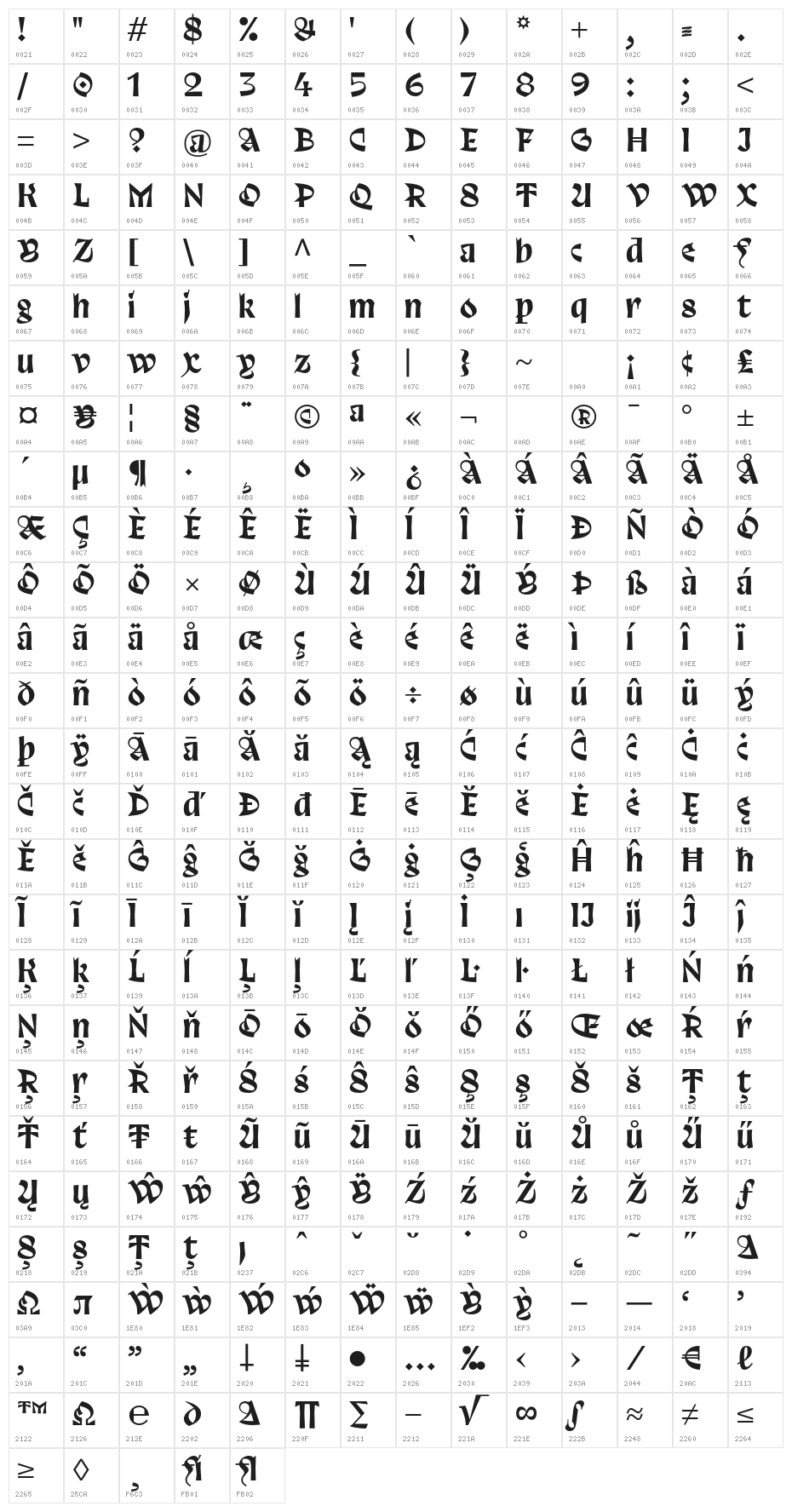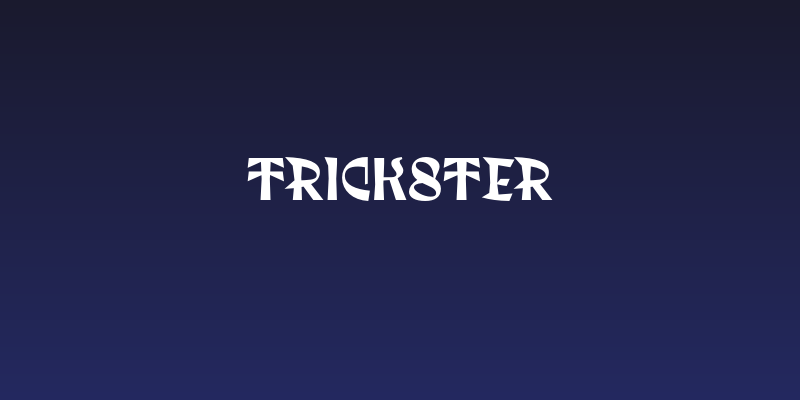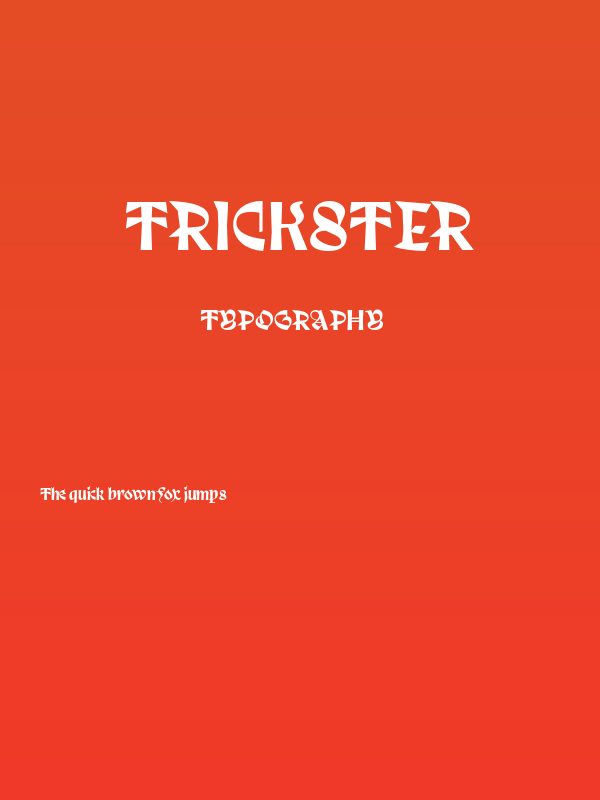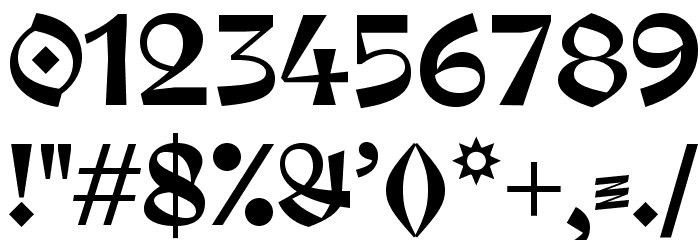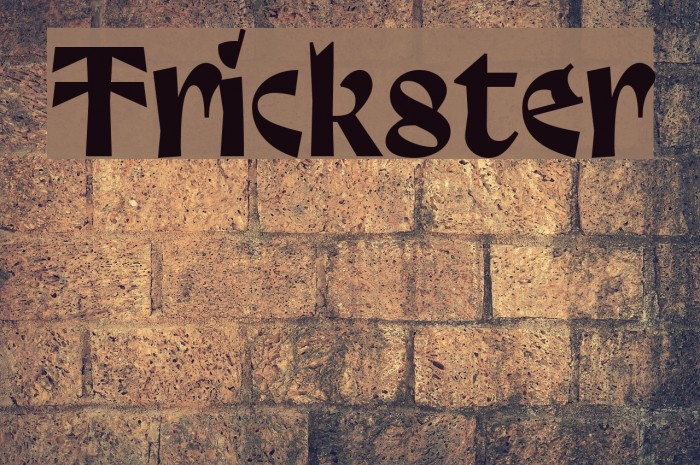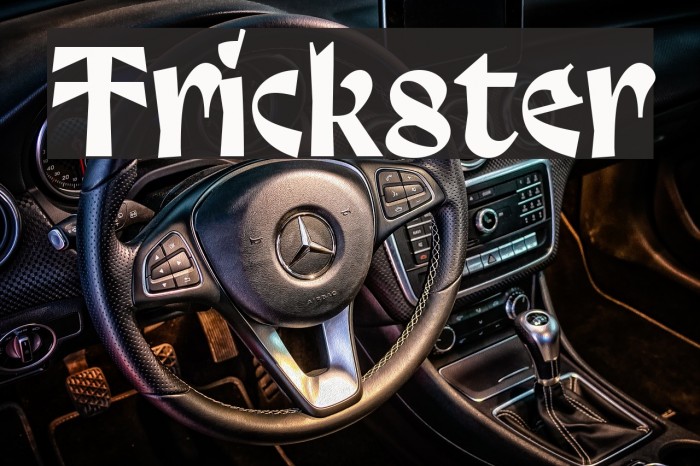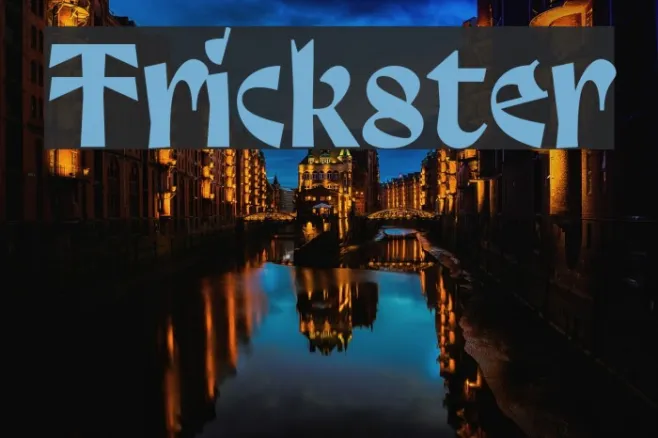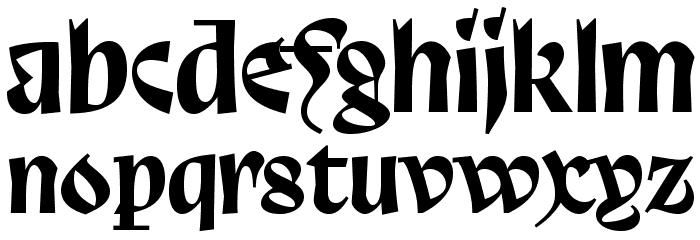
Trickster Font
Trickster Description
This font features a bold and playful design with a distinctively whimsical and mischievous character. The uppercase letters have a strong presence with sharp, angular edges and a slightly medieval flair. The lowercase letters maintain this playful style, with unique curves and twists that add a sense of movement and energy. Numbers and special characters follow the same design principles, ensuring consistency across all elements. The font's overall appearance is both eye-catching and memorable, making it ideal for creative and unconventional projects.
| Proposed Projects | Ideal for posters, game titles, fantasy-themed events, and creative branding. |